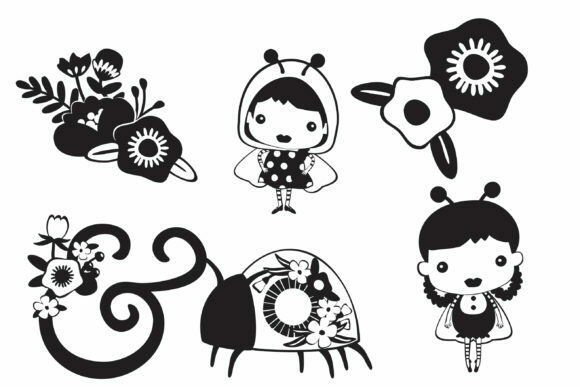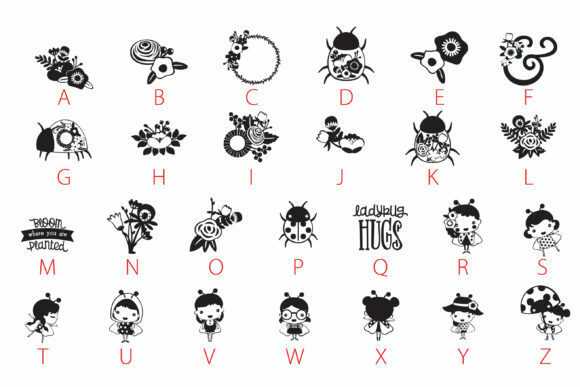
About Lady in Red Font
Lady in Red is a delightful dingbats font that brings a touch of organic charm to any design project. With its floral-inspired glyphs, this font is perfect for adding a feminine and whimsical touch to your creations. Here are some ideas on how you can use Lady in Red to enhance your designs:
1. Wedding Invitations: Create stunning wedding invitations with the help of Lady in Red. The floral glyphs can be used as decorative elements or borders to add a romantic and elegant touch to the design. Combine them with beautiful typography for a complete and cohesive look.
2. Stationery and Cards: Whether you’re designing notecards, greeting cards, or personalized stationery, Lady in Red can add a lovely floral touch. Use the glyphs to embellish the corners, borders, or headers of your designs, creating a unique and charming aesthetic.
3. Branding and Packaging: If you’re working on a project that requires a feminine and organic look, Lady in Red can be a perfect fit. Incorporate the floral glyphs into your logo, packaging design, or labels to give your brand a whimsical and natural appeal.
4. Blog and Social Media Graphics: Enhance your blog posts, social media graphics, or website banners with the help of Lady in Red. Use the floral elements to frame your content, create separators, or add decorative touches, creating a cohesive and visually appealing design.
5. Art Prints and Home Decor: Create beautiful art prints, wall art, or home decor items using Lady in Red. Use the floral glyphs as part of the design or create intricate patterns and arrangements to showcase the organic beauty of the font.
6. Scrapbooking and Crafts: Lady in Red can add a touch of elegance to your scrapbooking projects and crafts. Use the floral elements as embellishments, borders, or background patterns to create visually stunning and cohesive designs.
Remember to experiment with different colors, sizes, and combinations of the floral glyphs to create unique and personalized designs. Let the organic charm of Lady in Red inspire your creativity and add a delightful touch to your design projects.